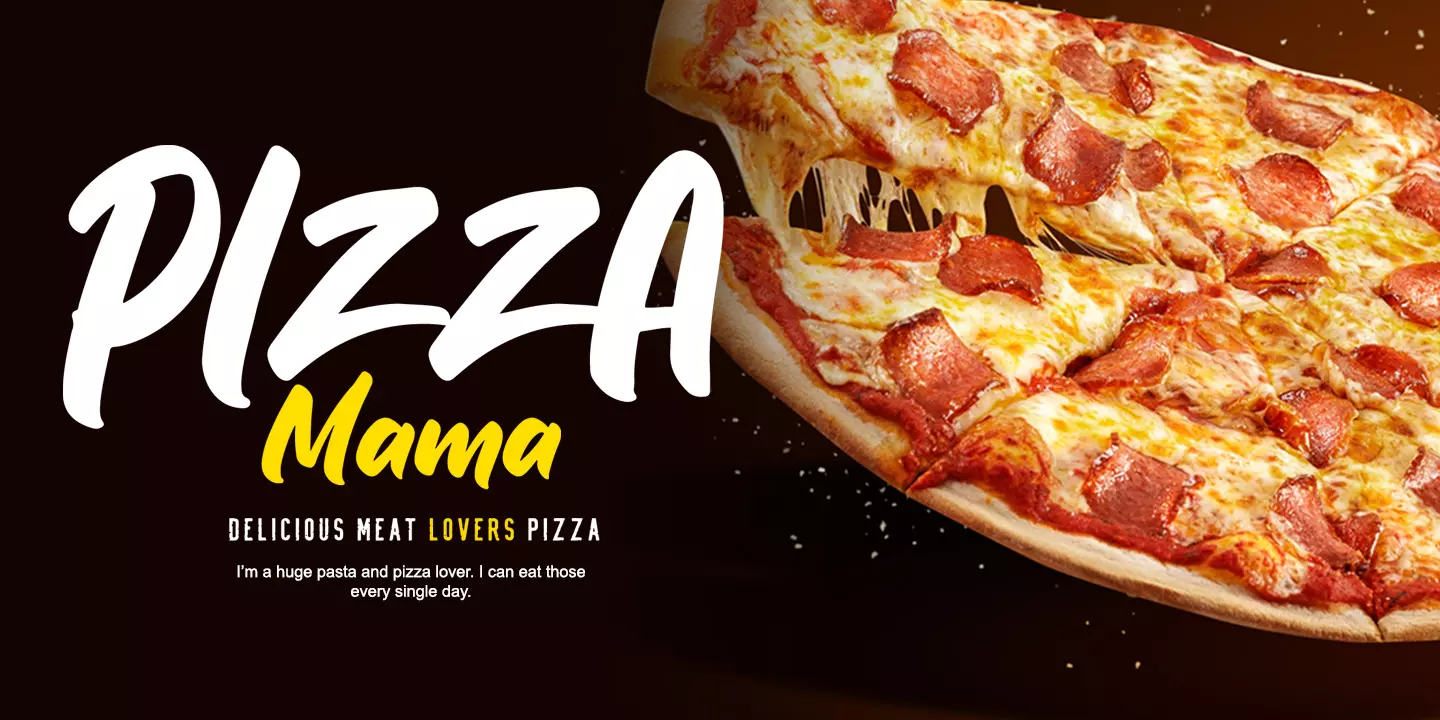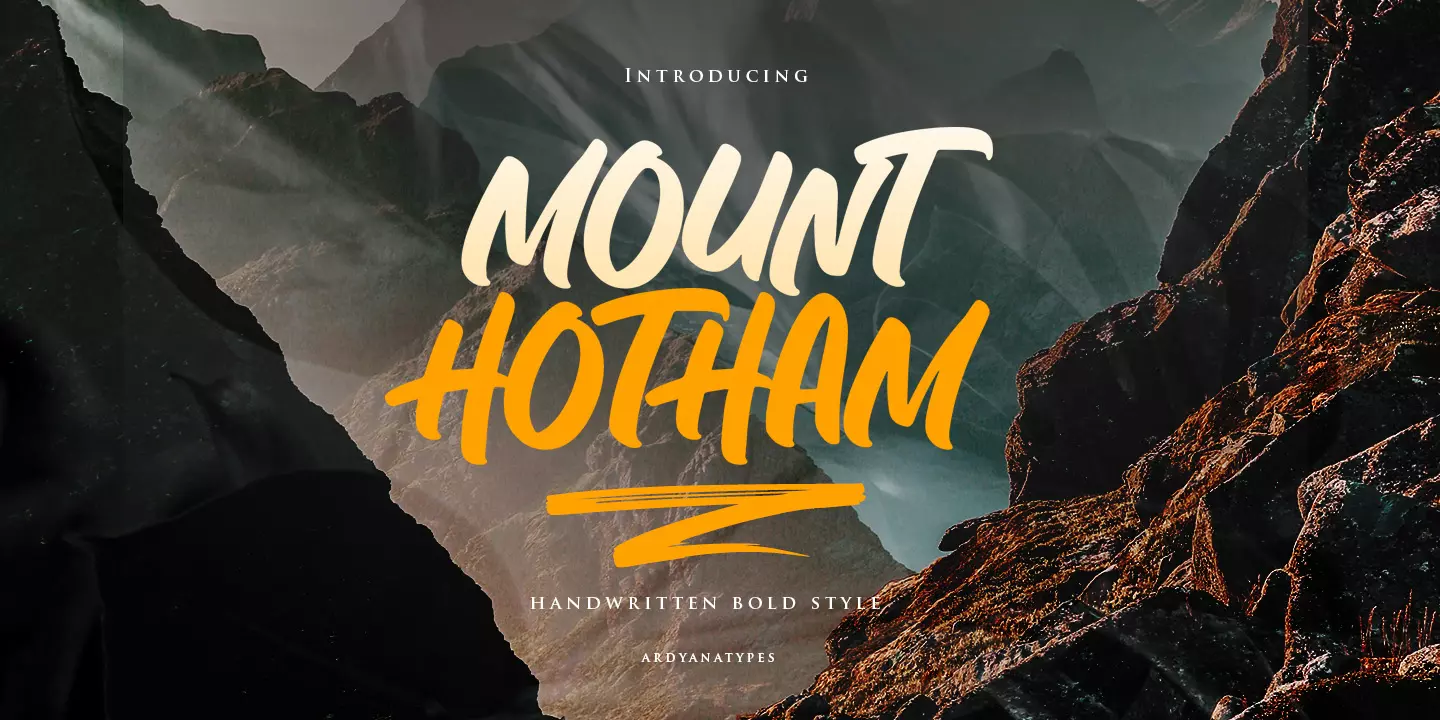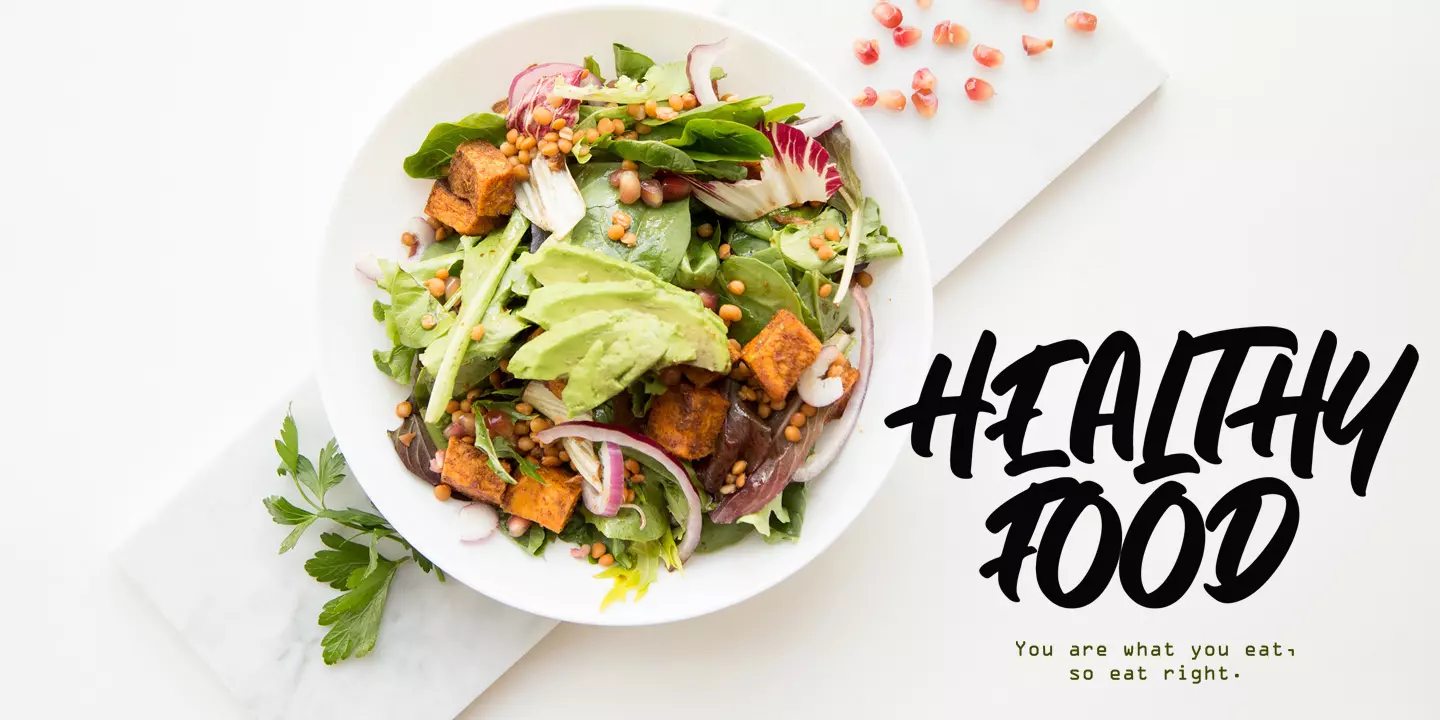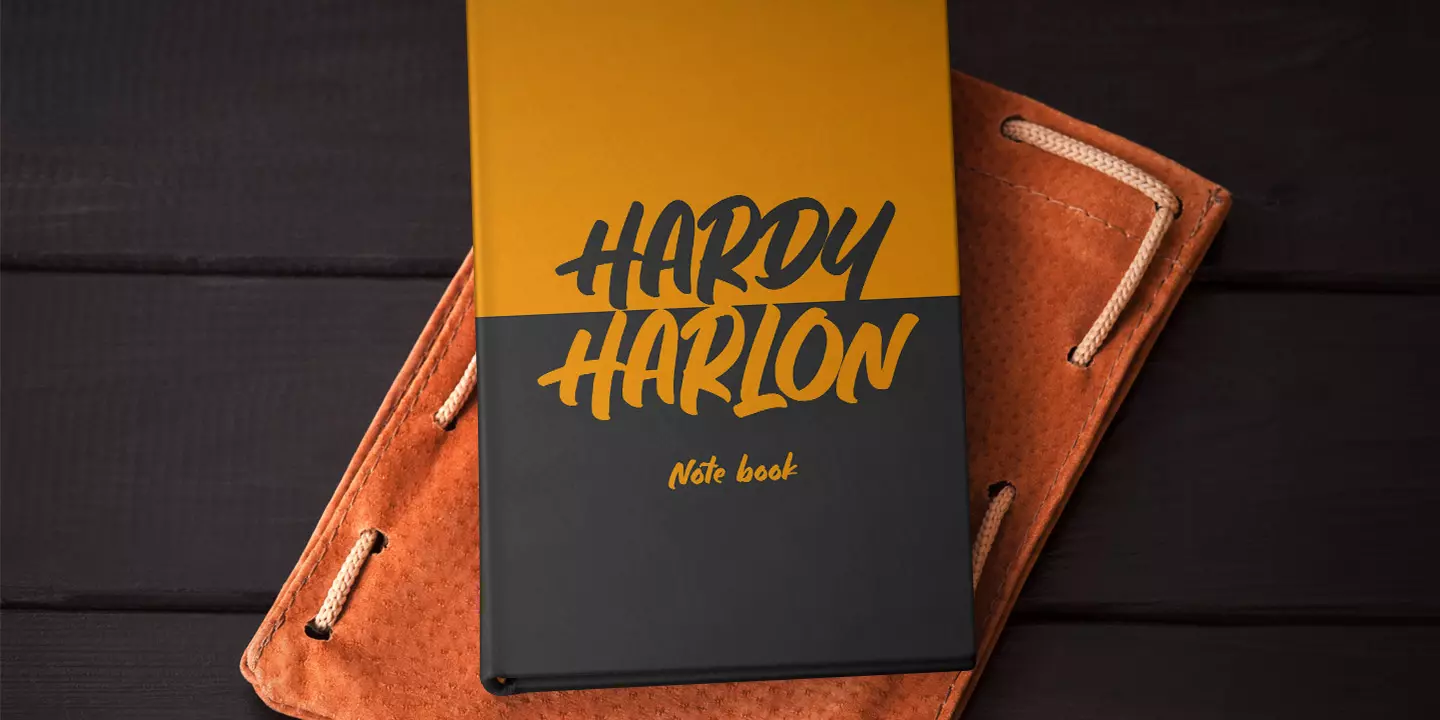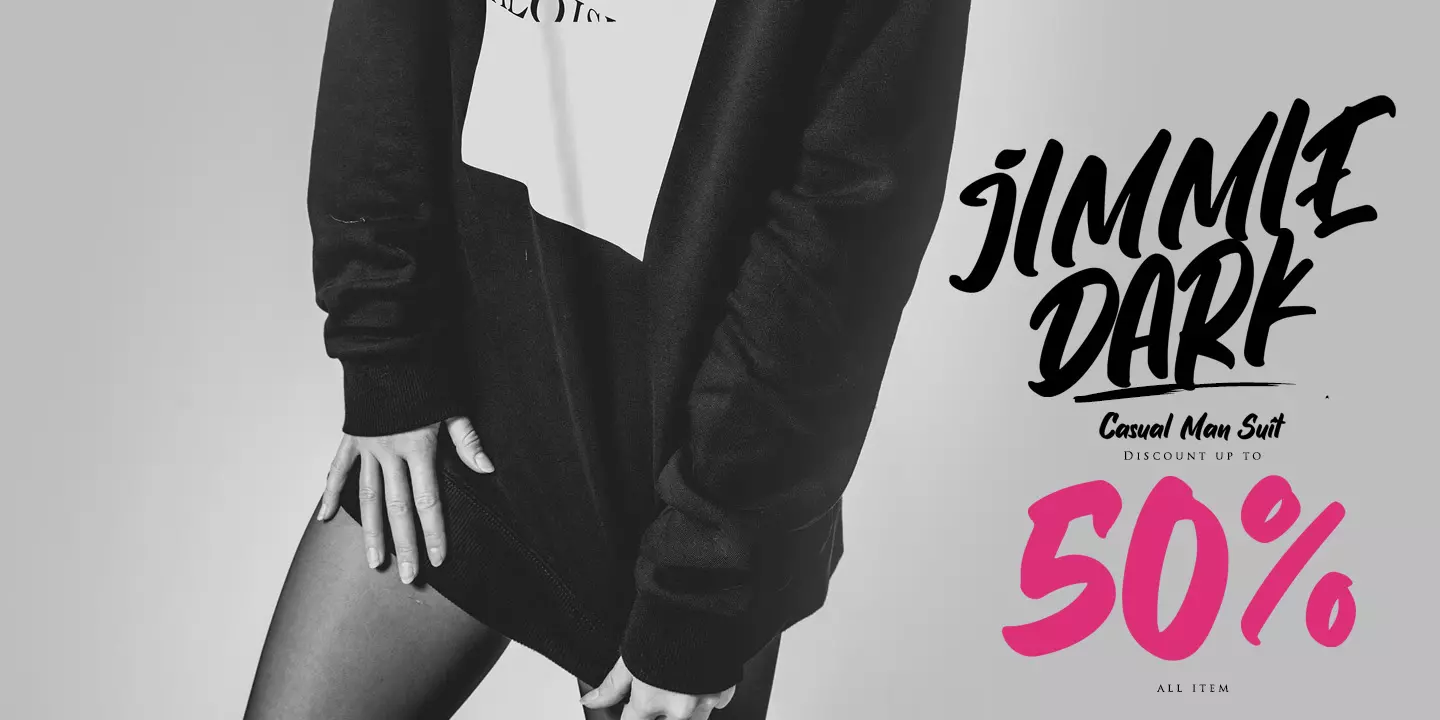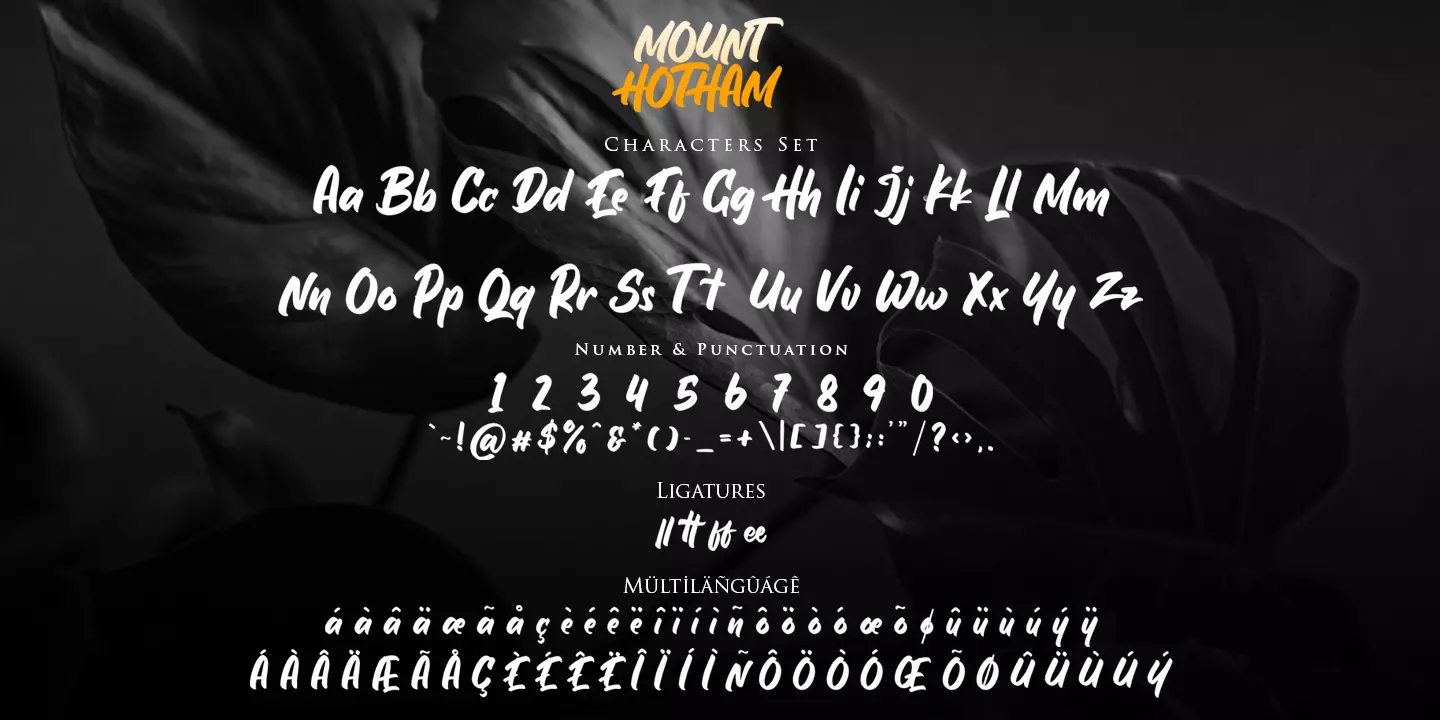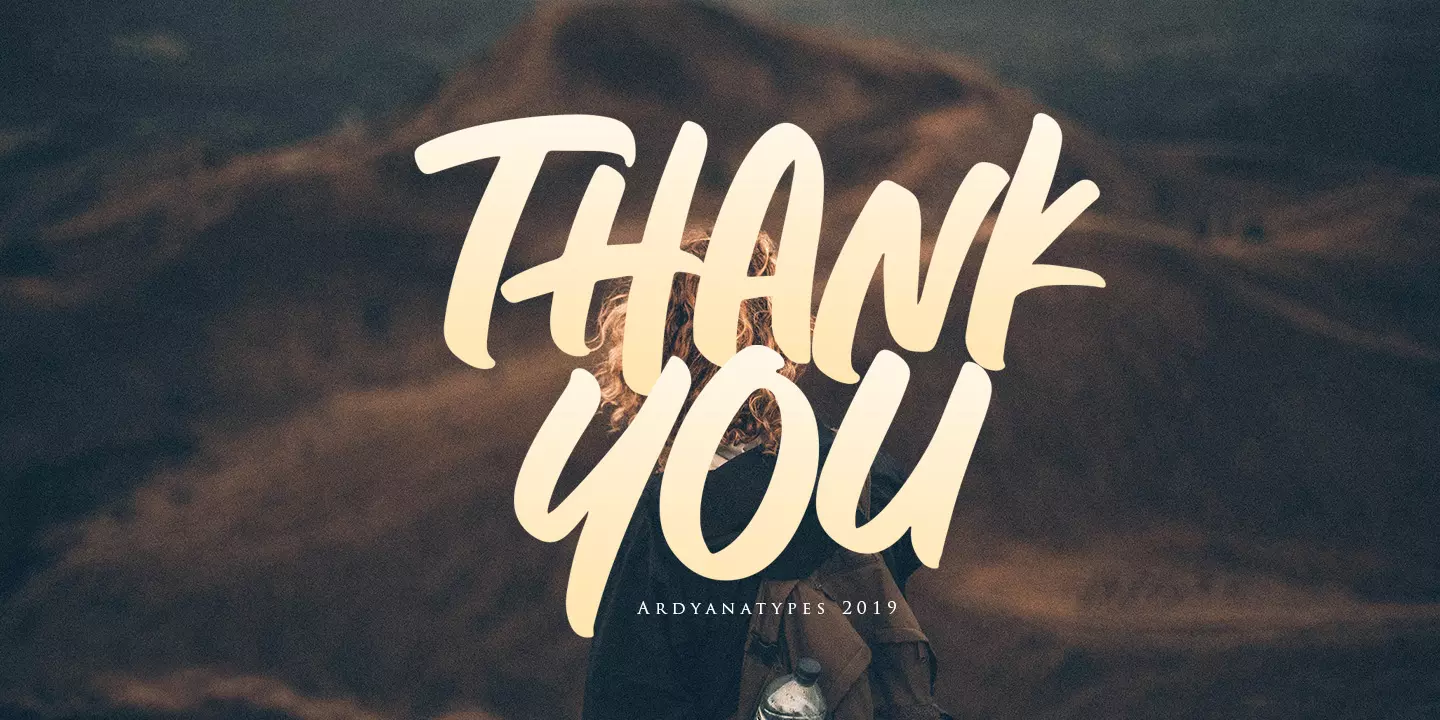
Hotham
Hotham is a font made in natural handwriting style. with a bold style, Hotham looks more assertive and attractive and will make all your work look more impressive. suitable for branding, posters, logos, printed quotes, invitations, image overlays, greeting cards, product packaging, text titles, greeting cards, book covers, painting design styles, or any design that requires a natural and personal touch & anything that can be imagined by you imagination! Hotham also has multilingual features.